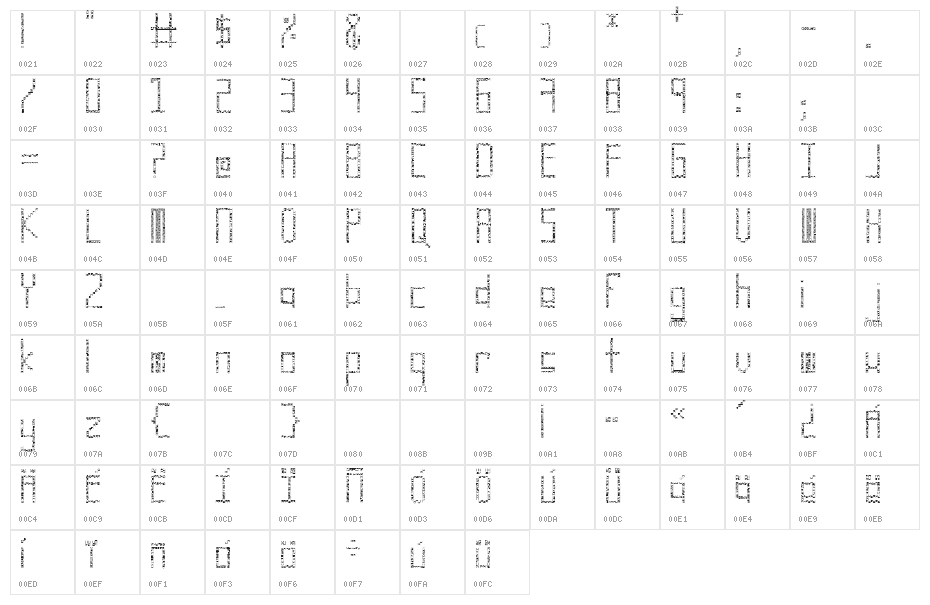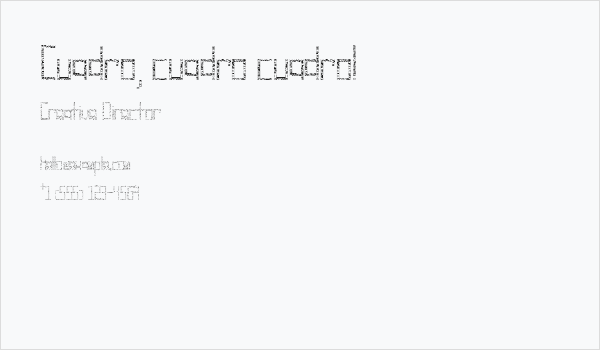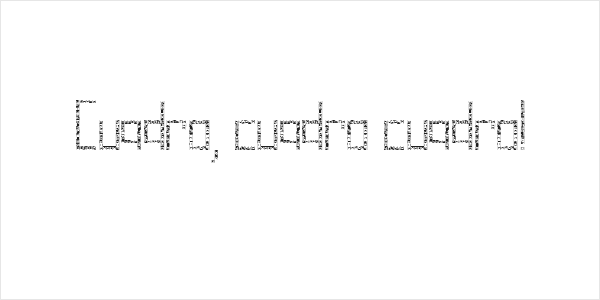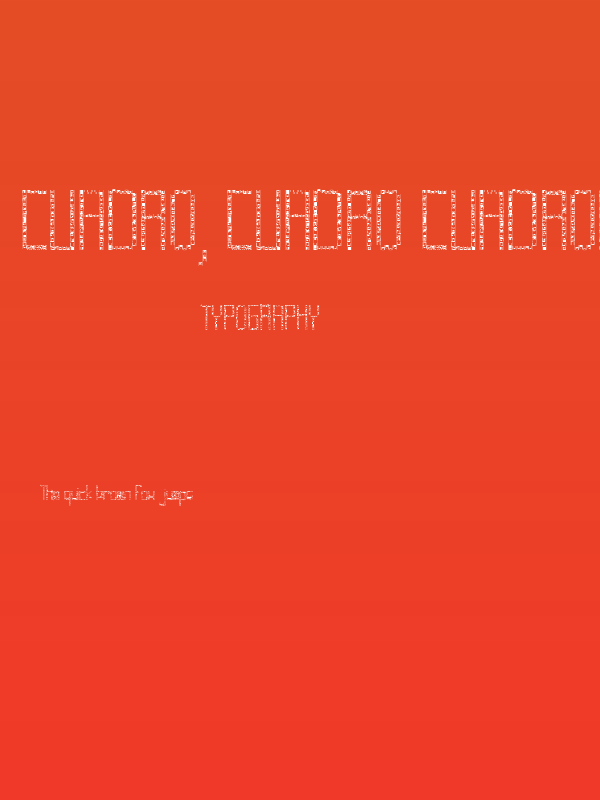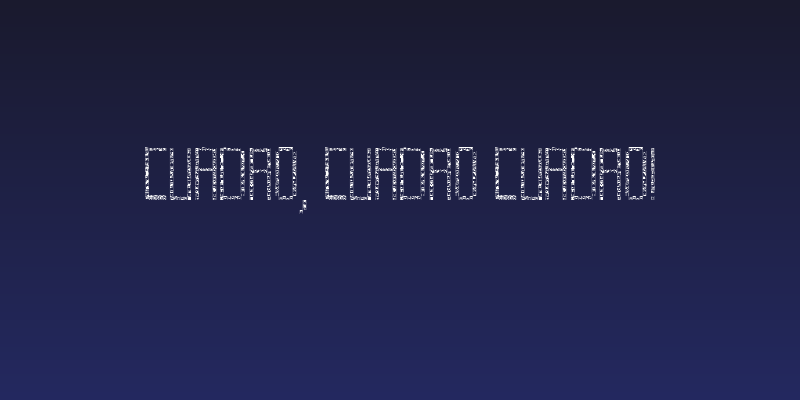
Cuadro, cuadro cuadro! Font
Cuadro, cuadro cuadro! Description
This font features a unique, pixelated design where each character is constructed from small square blocks. The geometric structure gives it a digital, retro appearance reminiscent of early computer graphics or video games. The uppercase and lowercase letters maintain a consistent blocky style, with each character clearly defined by its grid-like composition. Numbers and special characters follow the same pattern, ensuring uniformity across the font. This design is highly stylized, focusing on a decorative and playful aesthetic that stands out in digital and creative contexts.
| Overall Style | Retro, Digital |
| Use Case | Logos, Posters, Digital Art |
| Proposed Projects | Ideal for video game graphics, digital art projects, retro-themed designs, and creative posters. |